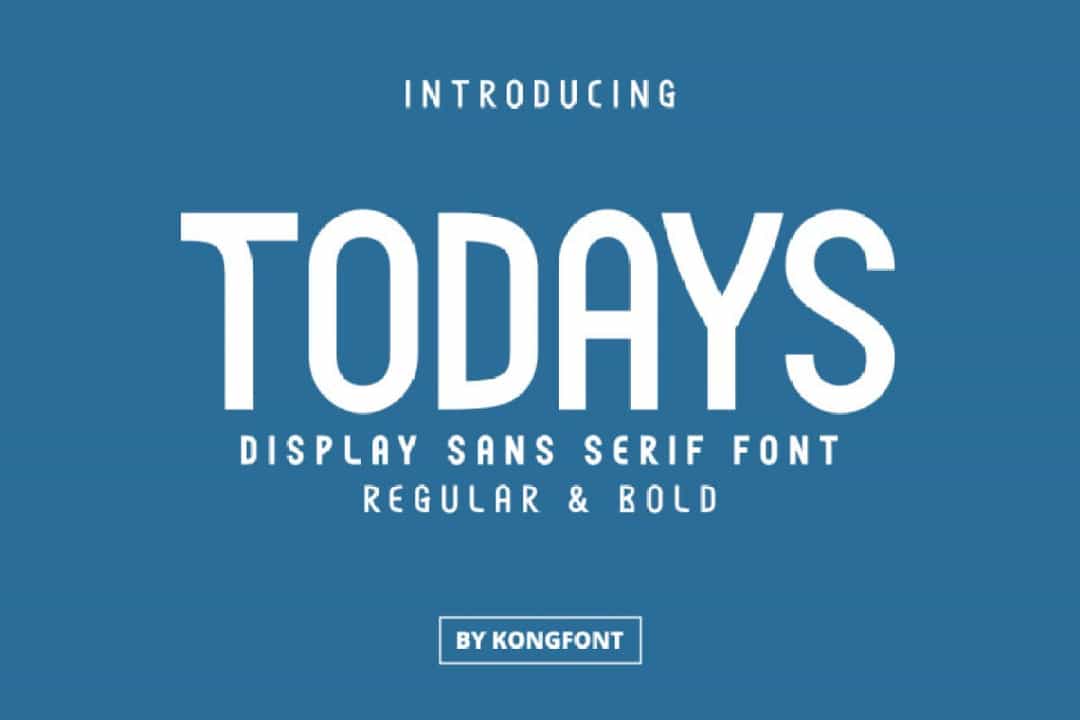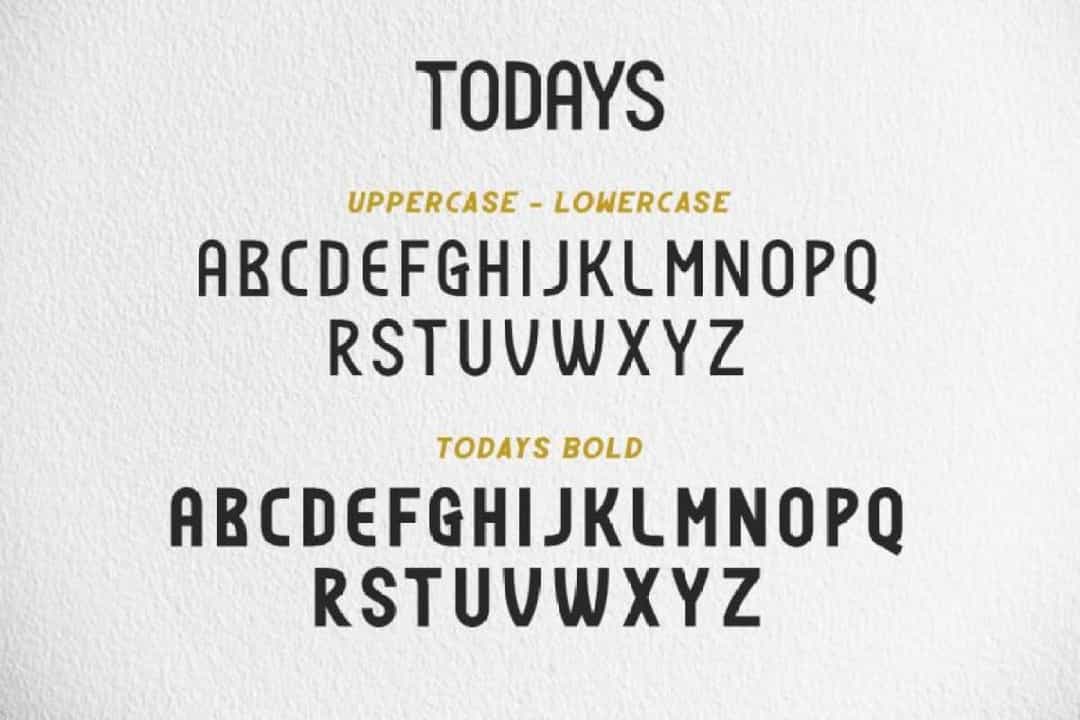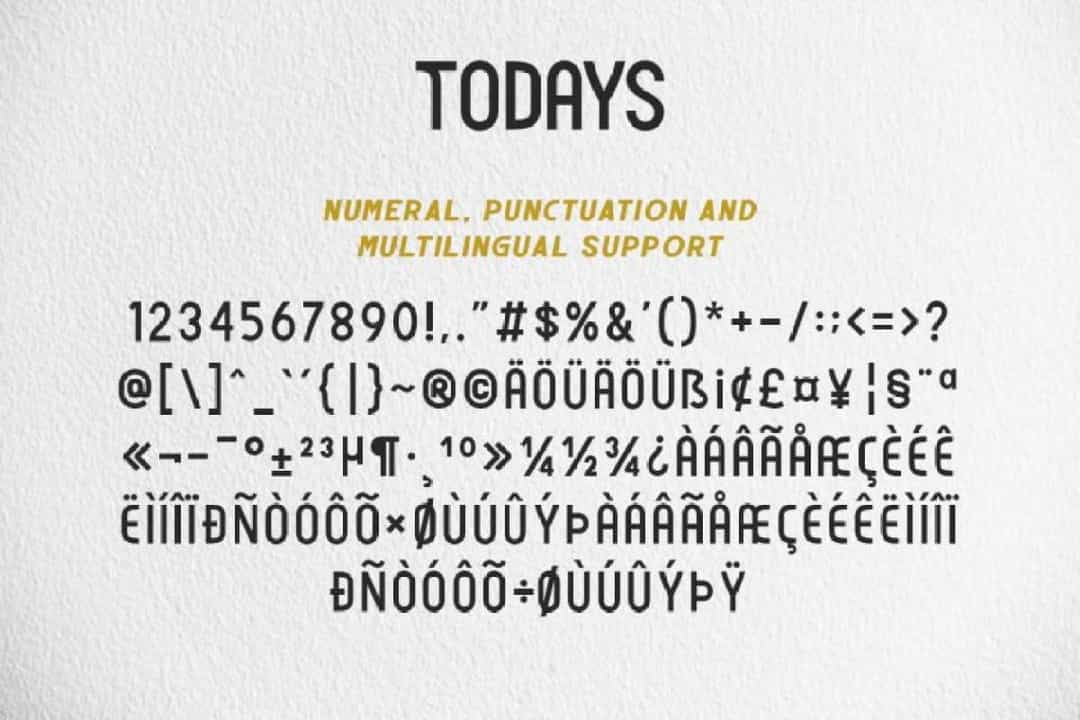
Discover Todays Font, part of the Sans Serif Display collection—a versatile and unique font perfect for adding a personal touch to your projects. Download it for free and enjoy crafting designs with style, from invitations to social media posts. This font is available exclusively for personal use, giving you the freedom to create without limits. Unlock your creativity with Todays Font today!
Today’s Sans Serif Font is ideal for creating stunning invitations to birthdays, weddings or any special event – make them adorable with a set of numbers and letters tailored specifically to your project! Also suitable as Logotype, Branding Design, Logo Design, Digital Lettering Arts (T-Shirt/Apparel/Poster), Magazine Ads, Signage Ads as well as any other projects requiring branding!